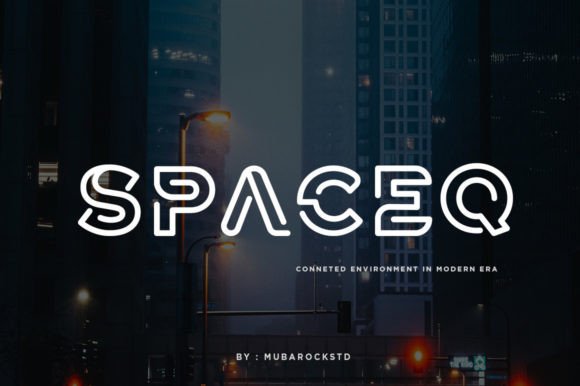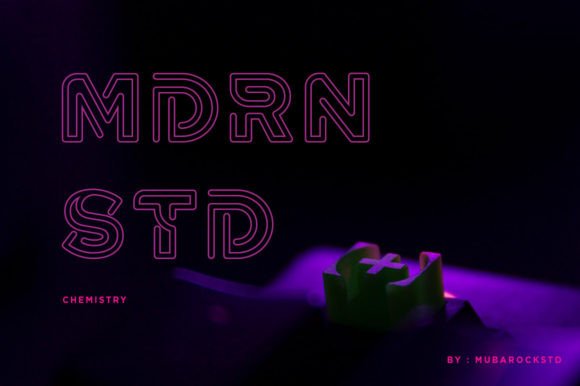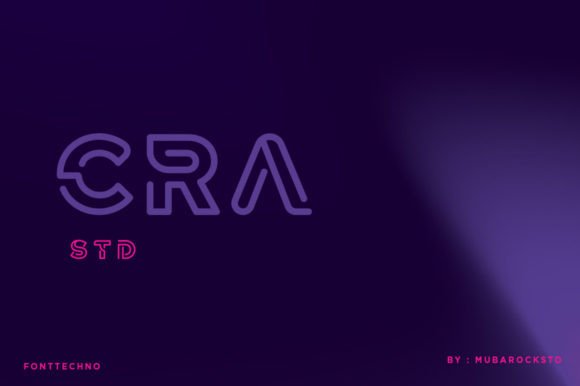
Introducing Electra Font: Elevate Your Designs with Modern Minimalism
In the world of typography, a good font can make all the difference in the success of a design project. Whether you’re a seasoned designer or a crafty DIY enthusiast, having the right font at your disposal can elevate your creations from ordinary to extraordinary. This is where Electra Font comes in – a modern minimalist display font that is poised to become an indispensable asset in your font library.
The Power of Minimalism in Typography
Minimalism has been a dominant force in design for several years, and typography is no exception. A minimalist font is not just about simplicity; it’s about creating a clean, uncluttered aesthetic that allows the content to take center stage. Electra Font embodies this philosophy, offering a sleek and sophisticated look that complements a wide range of topics and themes.
What Makes Electra Font Stand Out
Electra Font is more than just another pretty font. Its modern design ensures that it is versatile and highly legible, making it perfect for use in various contexts, from digital screens to print materials. Here are some key features that set Electra Font apart:
- Clean Lines: Electra’s lines are crisp and clean, providing a clear and readable text that works well in both headings and short paragraphs.
- Modern Aesthetic: Its modern look makes it suitable for contemporary designs, including branding, advertising, and digital media.
- Versatility: Whether you’re working on a website, a brochure, or a social media graphic, Electra Font adapts seamlessly to different mediums and design requirements.
- Emotional Connection: The font’s minimalist design doesn’t just convey professionalism; it also creates an emotional connection with the reader, making your message more impactful.
How Electra Font Can Elevate Your Designs
Incorporating Electra Font into your design projects can have a transformative effect. Here are some ways it can enhance your work:
- Professionalism: Electra’s sleek design instantly adds a level of professionalism to your work, making it suitable for high-end clients or personal branding projects.
- Creativity: The font’s modern aesthetic gives you the creative freedom to experiment with different layouts, colors, and textures, pushing the boundaries of your design.
- Branding: For branding projects, Electra Font offers a unique opportunity to create a distinctive visual identity that stands out in a crowded market.
- Accessibility: Its high legibility ensures that your message is accessible to a wide audience, including those with reading difficulties.
Tips for Using Electra Font Effectively
To get the most out of Electra Font, consider the following tips:
- Pair it with Other Fonts: Experiment with pairing Electra Font with complementary fonts to create visual interest and hierarchy in your designs.
- Play with Sizes: Use different sizes to create a clear distinction between headings, subheadings, and body text.
- Experiment with Colors: While Electra Font looks great in black and white, don’t be afraid to experiment with colors to match your brand’s palette or to evoke a specific mood.
- Consider Line Spacing: Pay attention to line spacing to ensure that your text is easy to read and visually appealing.
| Font Name | Electra Font |
| Author | mubarocktype |
Electra Font is more than just a font – it’s a design tool that can elevate your creations to new heights. Its modern minimalist design, versatility, and legibility make it an invaluable asset for designers and crafters alike. Whether you’re working on a professional project or a personal craft, Electra Font is poised to become your go-to choice for creating stunning, impactful designs. So why wait? Discover the potential of Electra Font today and take your designs to the next level.